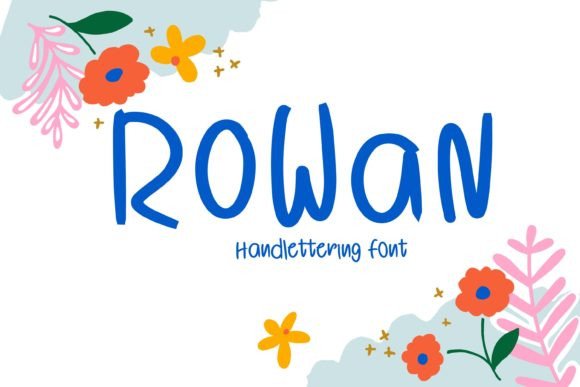
Rawon is a fun and playful display font that adds a touch of whimsy to any project. With its playful design and unique character shapes, each letter exudes a sense of joy and lightheartedness. Perfect for children’s books, packaging, and social media, Silly will make your designs stand out with its cheerful charm.